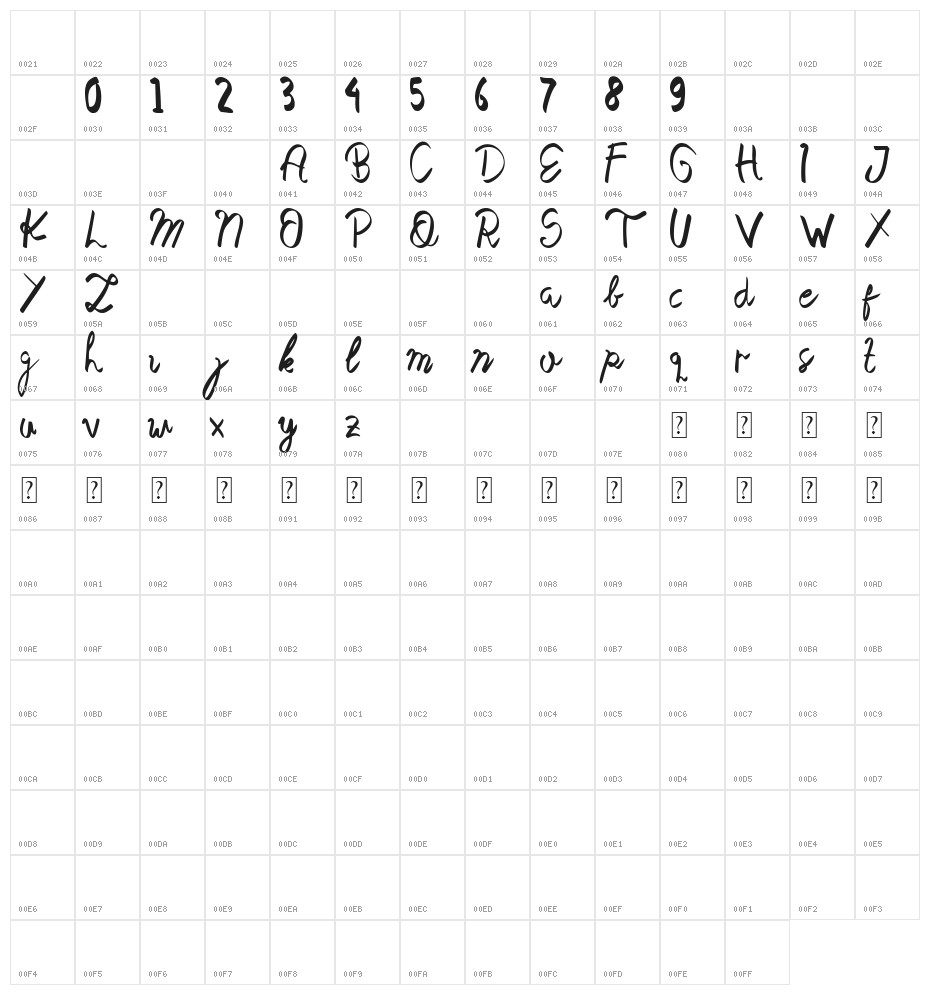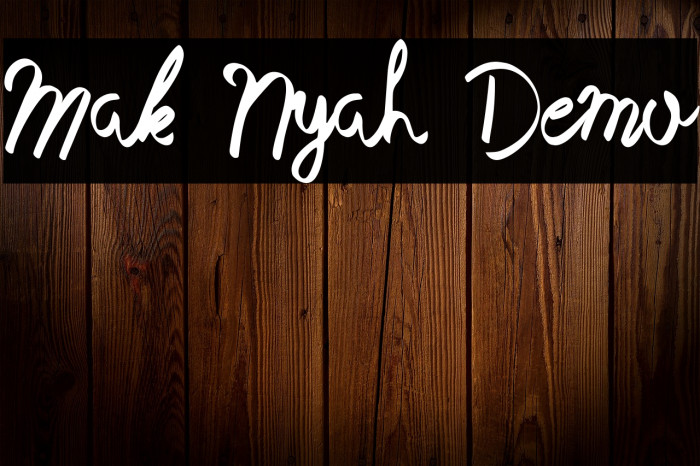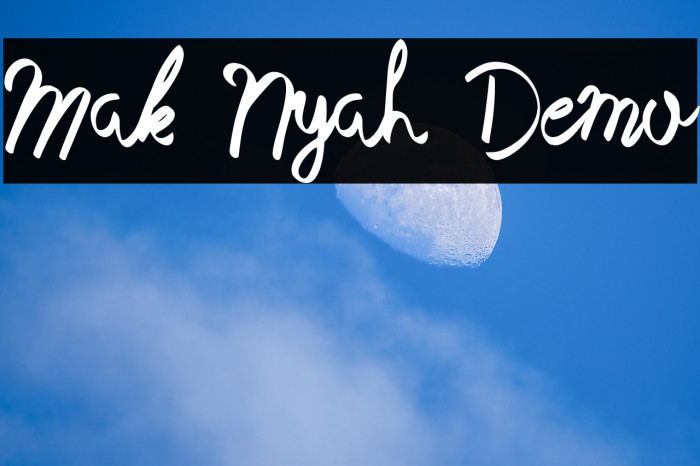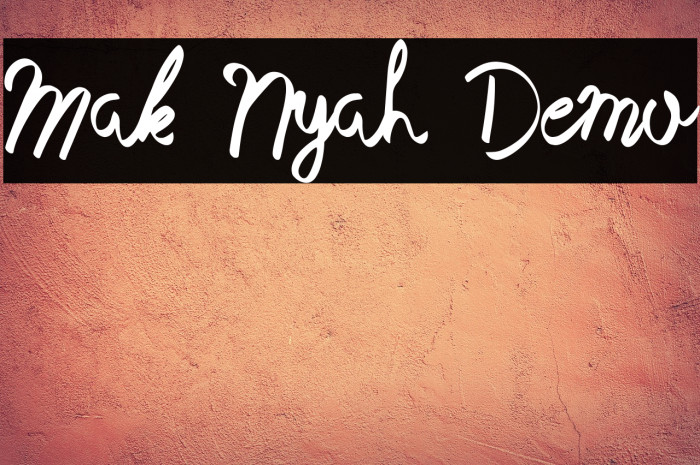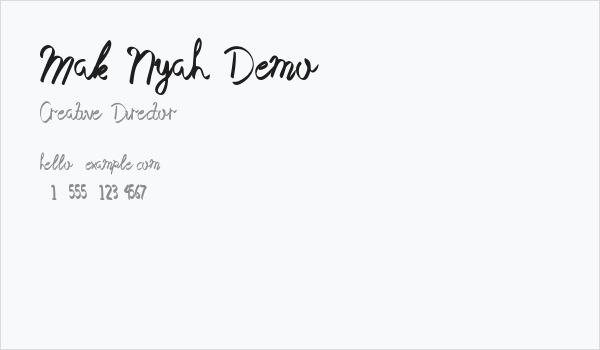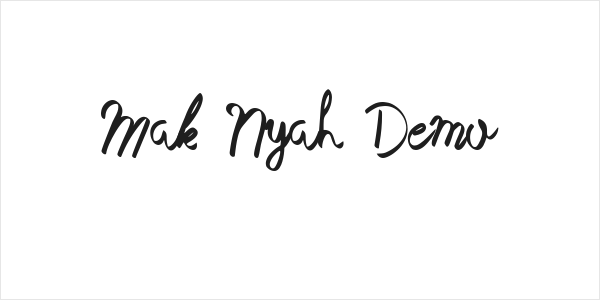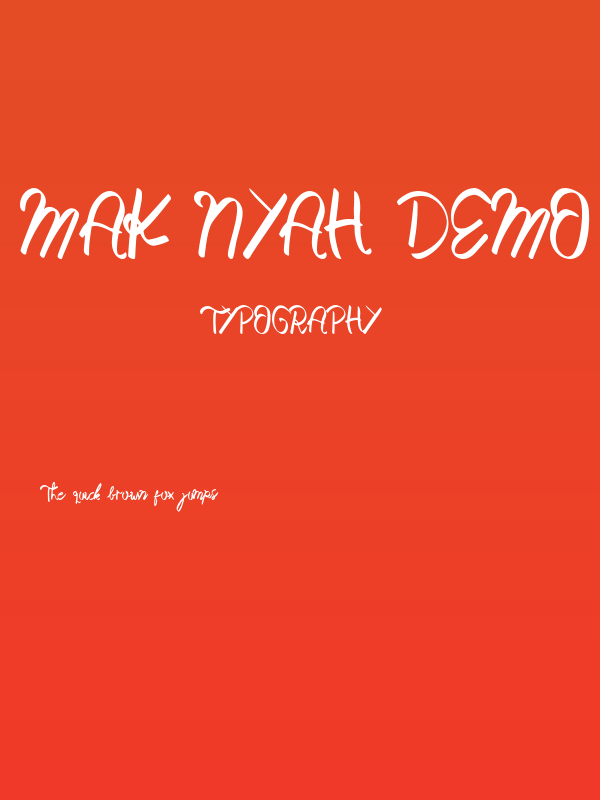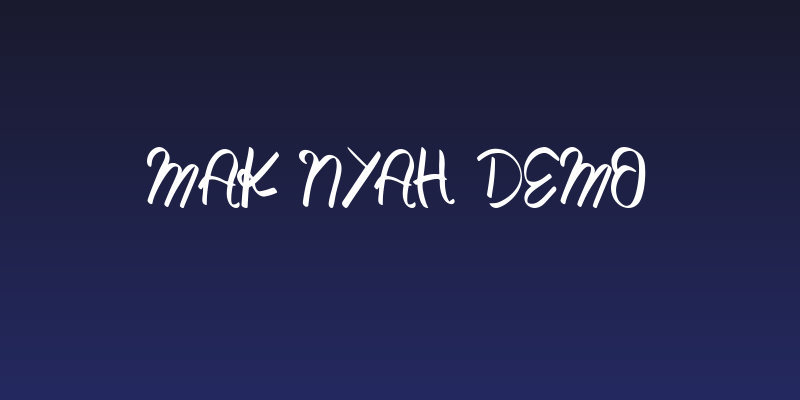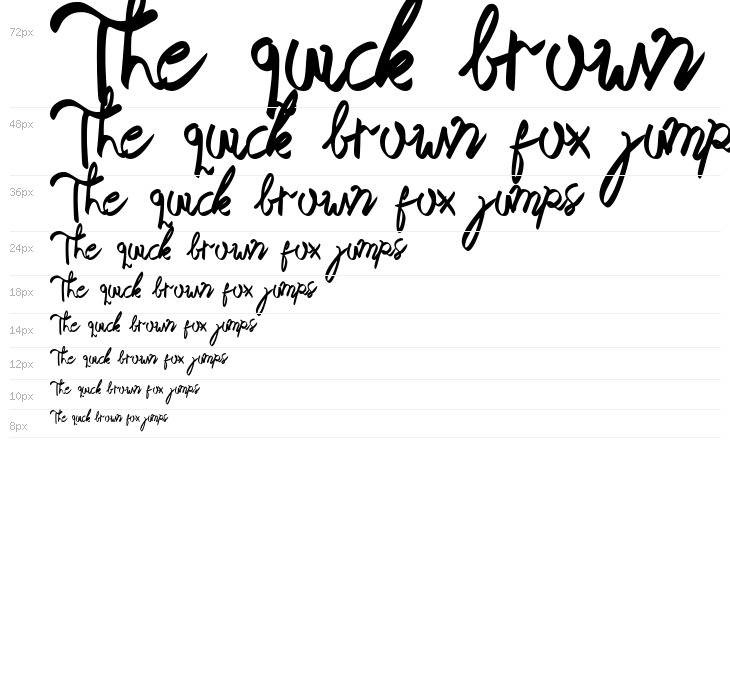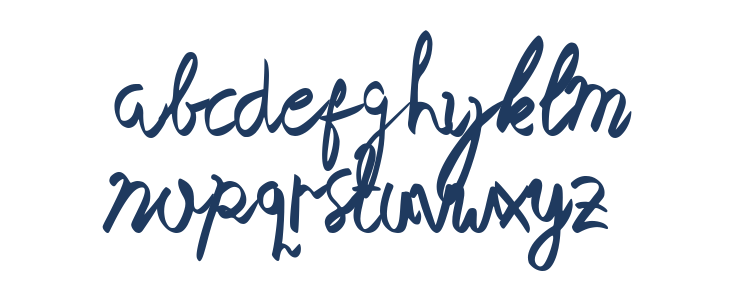
Mak Nyah Demo Font
Mak Nyah Demo Description
This font features a dynamic and flowing script style, characterized by its bold and expressive strokes. The uppercase letters are elegantly connected, giving a sense of movement and fluidity. The lowercase letters maintain a consistent style, with some letters extending below the baseline, adding to the font's lively appearance. The numerals are bold and slightly rounded, complementing the overall energetic feel. Special characters are integrated seamlessly, maintaining the font's cohesive look. This font is ideal for projects that require a personal and artistic touch.